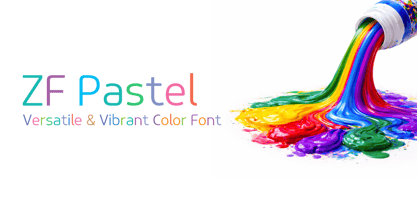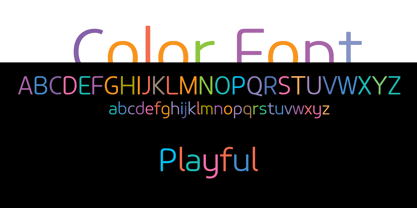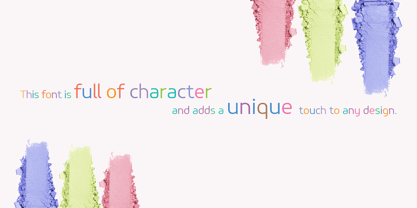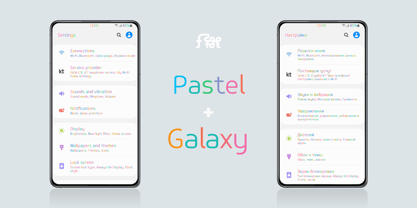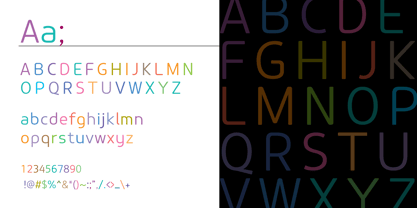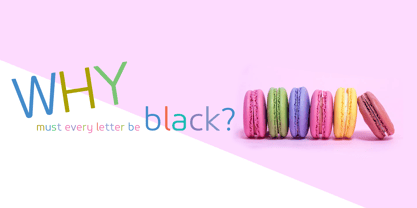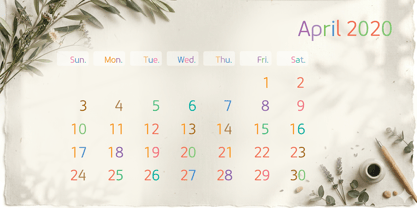
ZFpastel
by ZooFont
The ZFpastel Font Family was designed by joo-hong Kim and published by ZooFont. ZFpastel contains 1 styles. More about this family
"Coloring the Text: The Dawn of a New Visual Experience" Imagine a font that doesn’t just speak, but glows with its own light. By assigning a diverse color palette to each letter, this typeface transforms ordinary text into a soft pastel mural—instantly eye-catching and emotionally engaging. Built with a modern structure and gentle curves, it offers a stable yet fluid reading experience, making it as practical as it is beautiful. Perfect for branding, social media content, posters, and playful visual storytelling, this font adds warmth, personality, and a distinctive tone to any design. Like a soft pastel breeze, it turns your everyday messages into unforgettable visual moments.